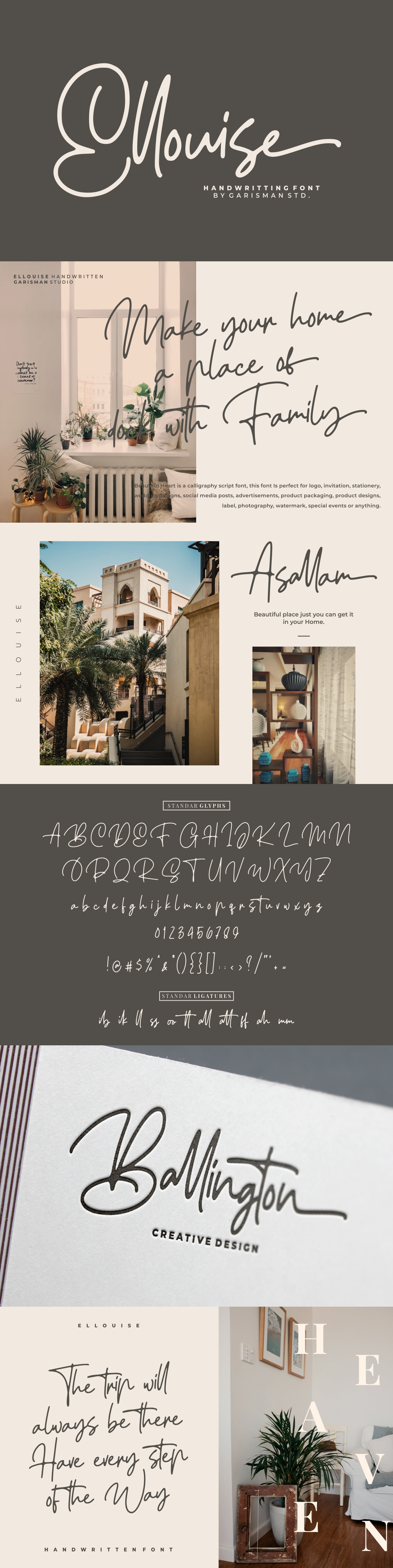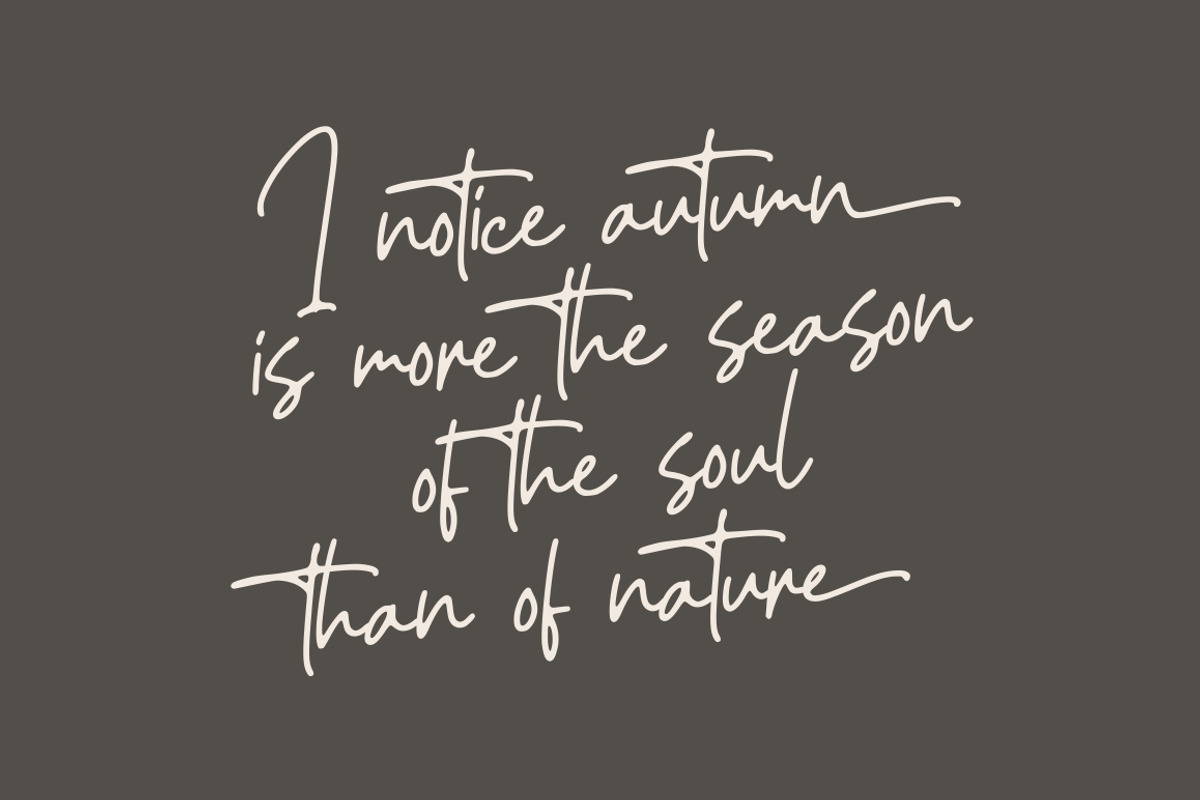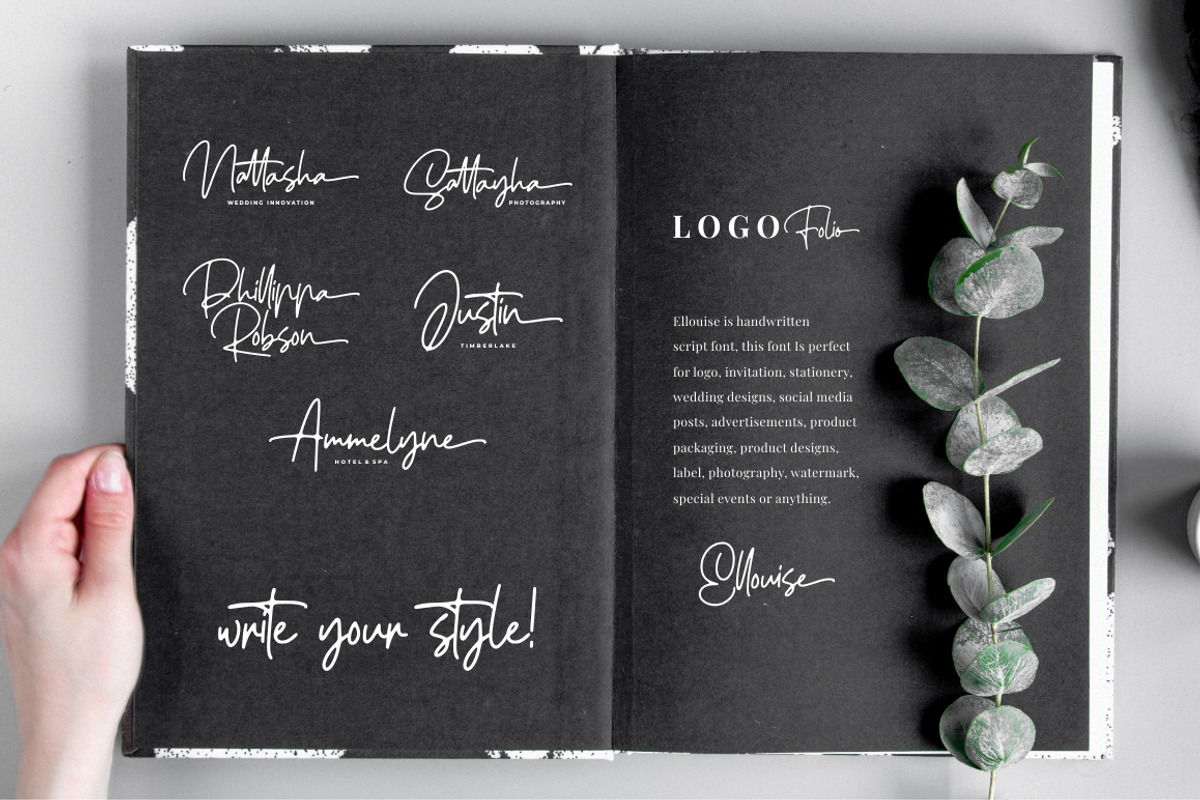
Ellouise - Handwriting Font
Ellouise is made a naturally modern script with a fresh modern script; delivering a stylish script which is guaranteed to add an eye-catching appeal to your logo designs, brand imagery, quotes, product packaging, merchandise & social media posts.
- Standar Ligatures
- Versatile for poster, logotype, labels, book cover